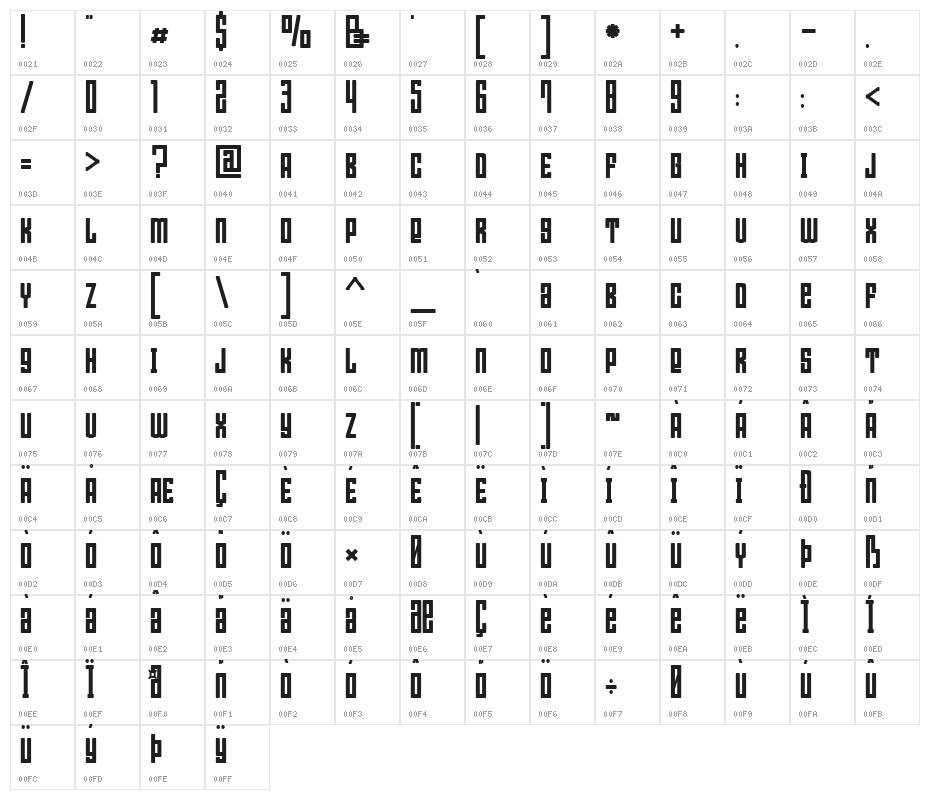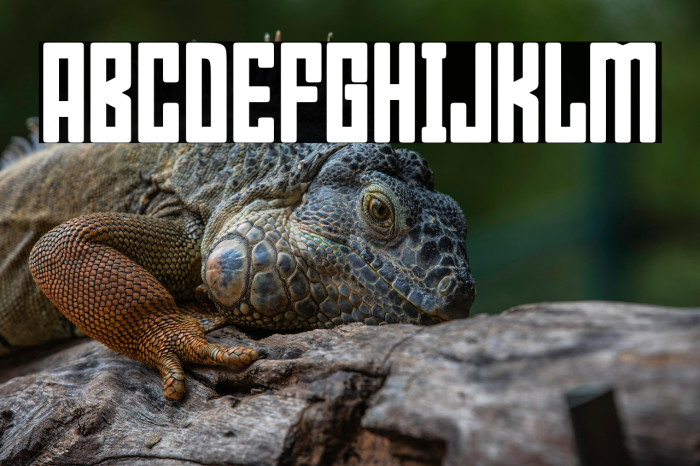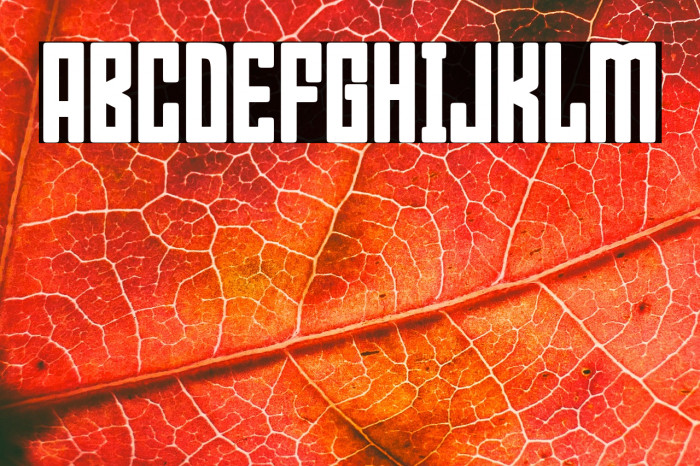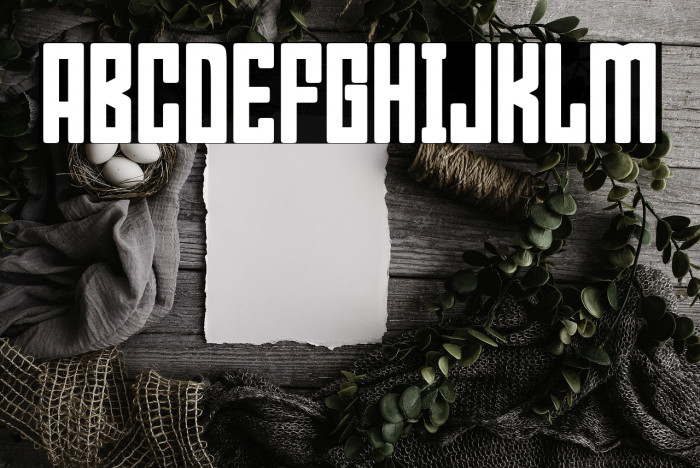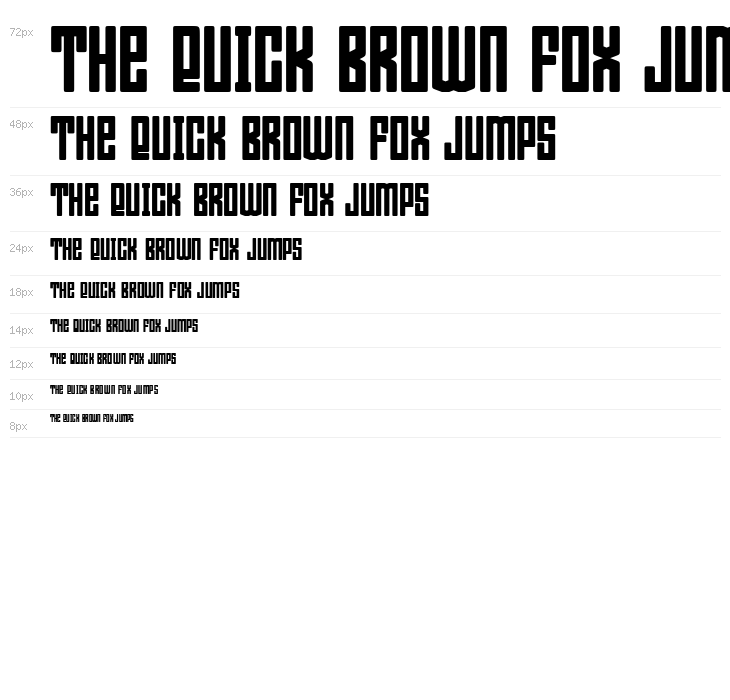
Bumpers 02 Regular Font
Bumpers 02 Regular Description
This font features a bold, geometric design with a strong presence. The characters are uniformly structured with a blocky, rectangular shape that conveys a sense of stability and strength. The uppercase letters are particularly striking, with consistent vertical and horizontal strokes that create a cohesive look. The numerals and special characters maintain the same bold style, ensuring uniformity across all text. This font's design is reminiscent of industrial or architectural themes, making it ideal for projects that require a modern and robust aesthetic.
| Proposed Projects | Ideal for branding, posters, signage, and any project needing a modern, impactful look. |